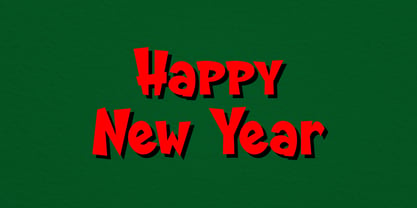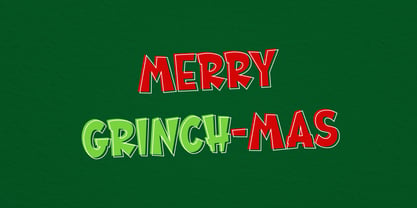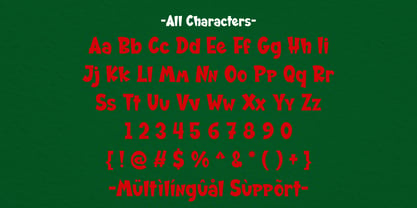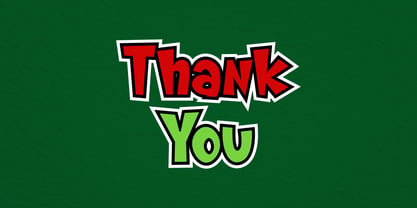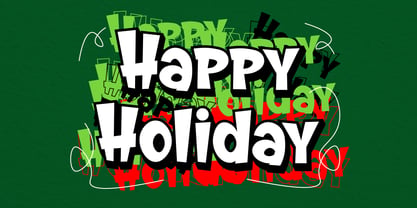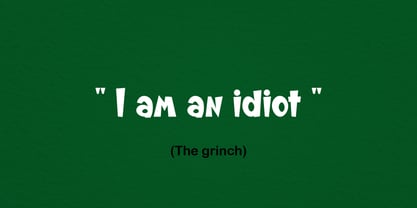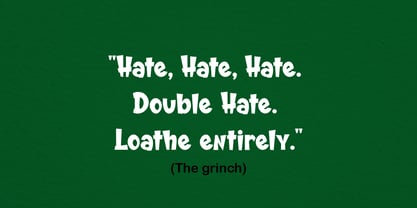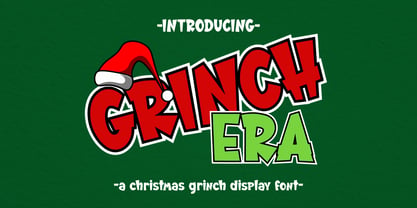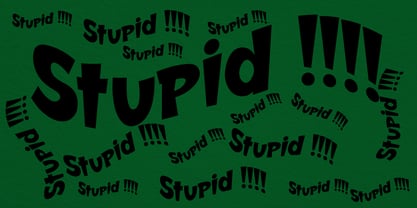
Grinch era
by Patlot Digital Studio
The Grinch era Font Family was designed by Gugun Gunawan and published by Patlot Digital Studio. Grinch era contains 1 styles. More about this family
Immerse your design projects in the playful merriment of the holidays with Grinch Era, a dynamic display font radiating a distinctive cartoon-style aura. Ideal for jazzing up blog content, branding elements and logos, Grinch Era infuses a element of enchantment into your advertisements. Use it as a tasteful sprinkle of festive cheer in your invitations and greeting cards, or as a charming touch to decorations and photo albums. Indispensable for crafty planners, Grinch Era promises to elevate your designs, bringing them to life with its unique seasonal imprint. Experience the transformational effect of this captivating font and observe how it enriches the visual appeal of your portfolio.
Designers: Gugun Gunawan
Foundry: Patlot Digital Studio
Patlot Digital Studio was founded in 2022 and is managed by Gugun Gunawan. I love drawing letters. I want to continue developing my creativity and using my passion to provide greater benefits for myself and the design community. I founded Patlot Digital Studio to help designers choose their projects. I create handwritten fonts, script fonts, and display fonts. Now I pursue my new passion full-time from my home studio.